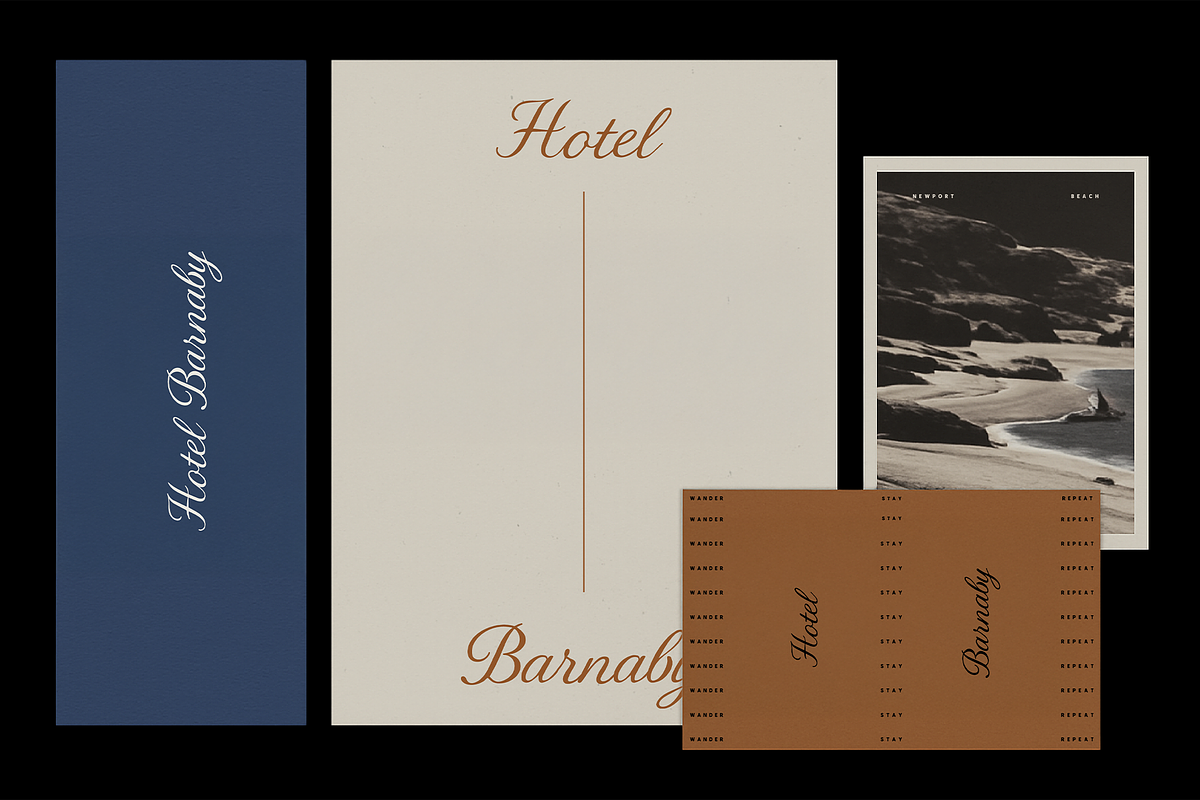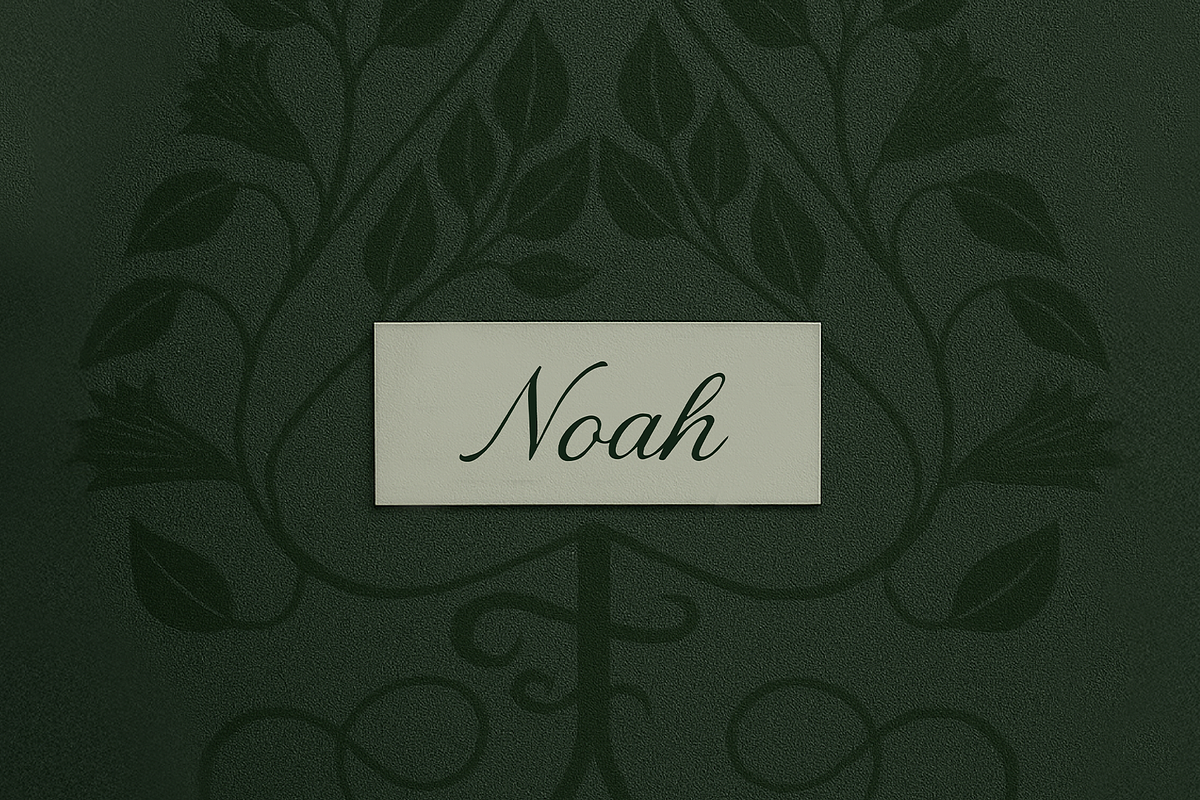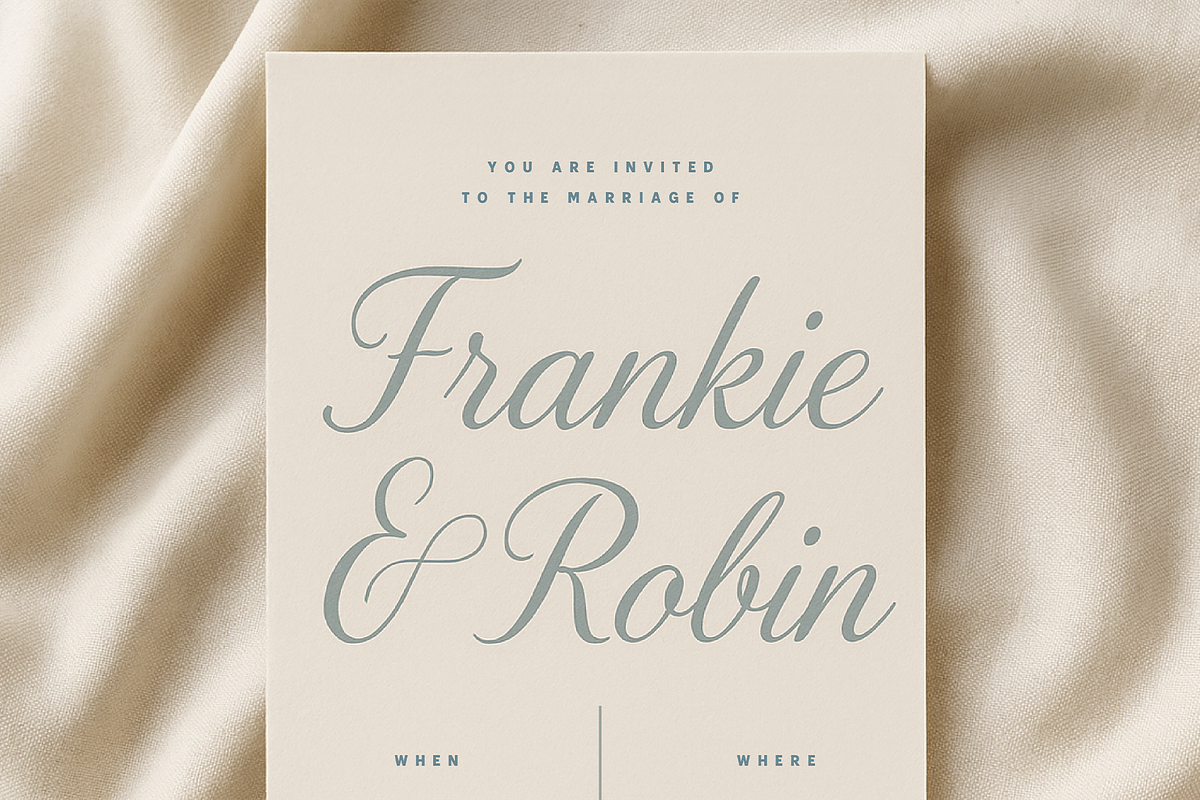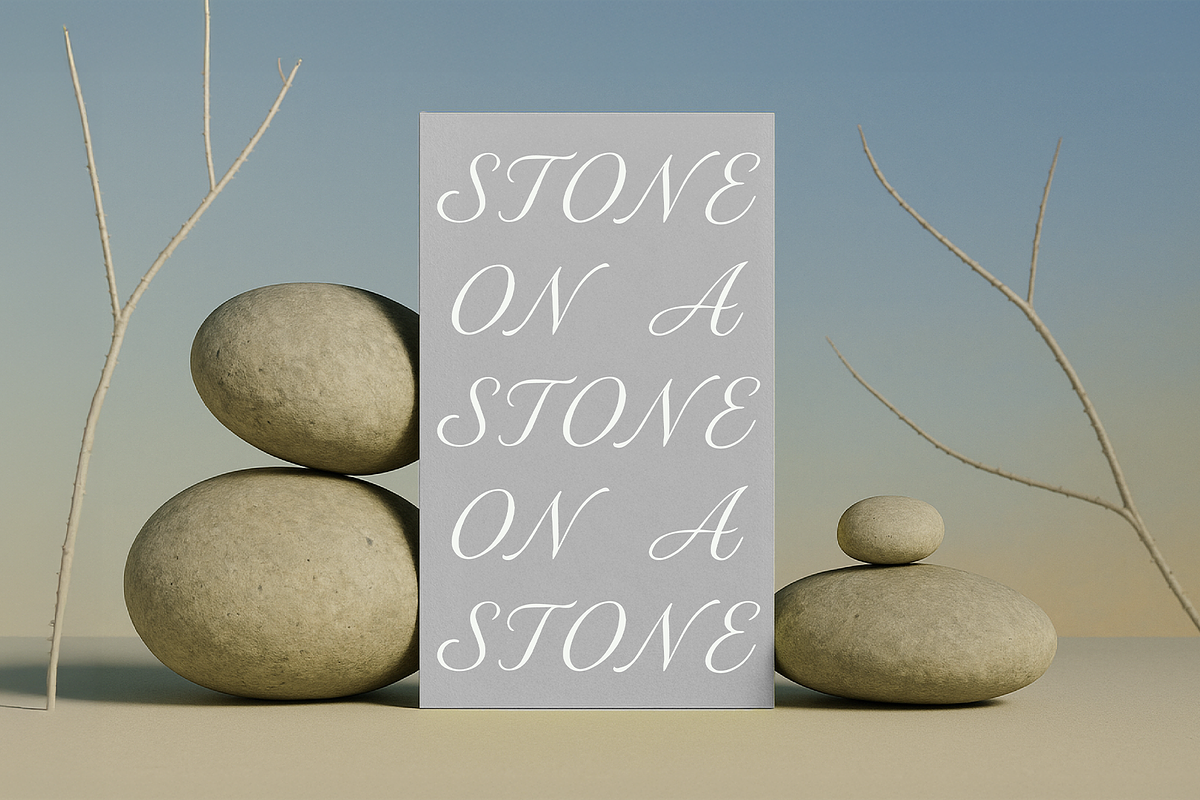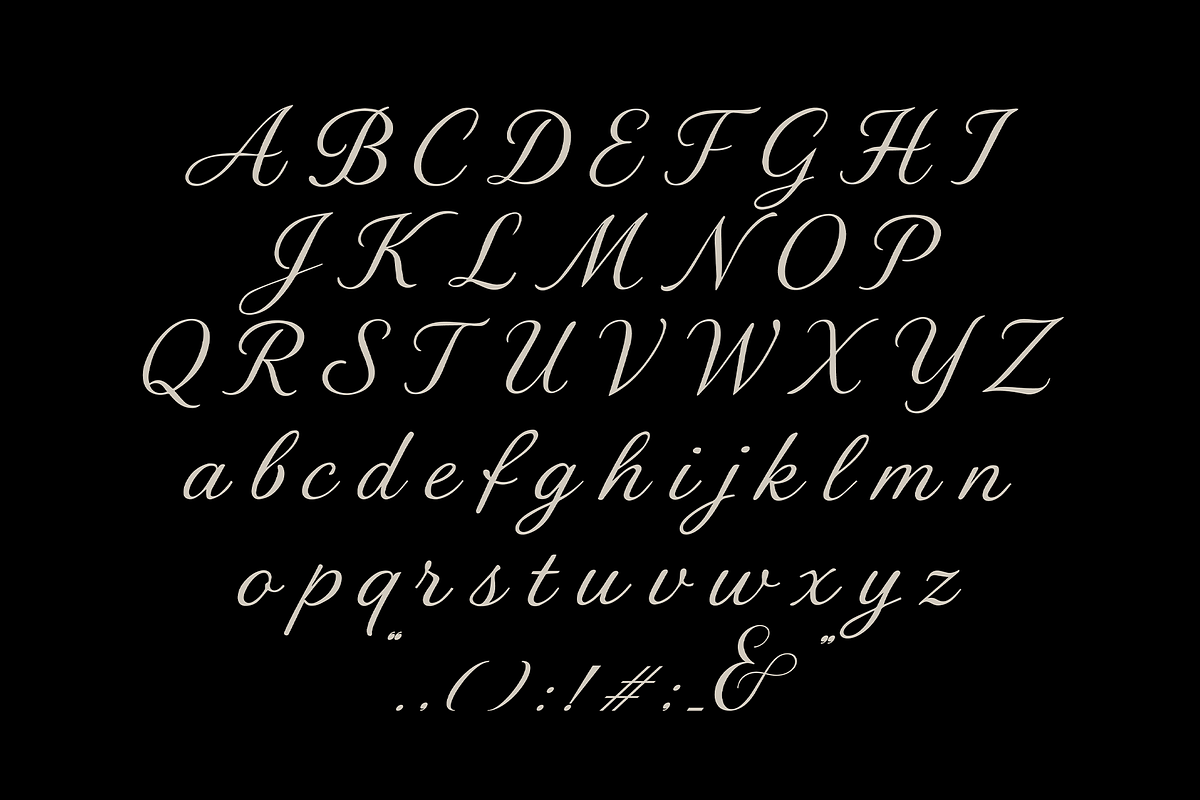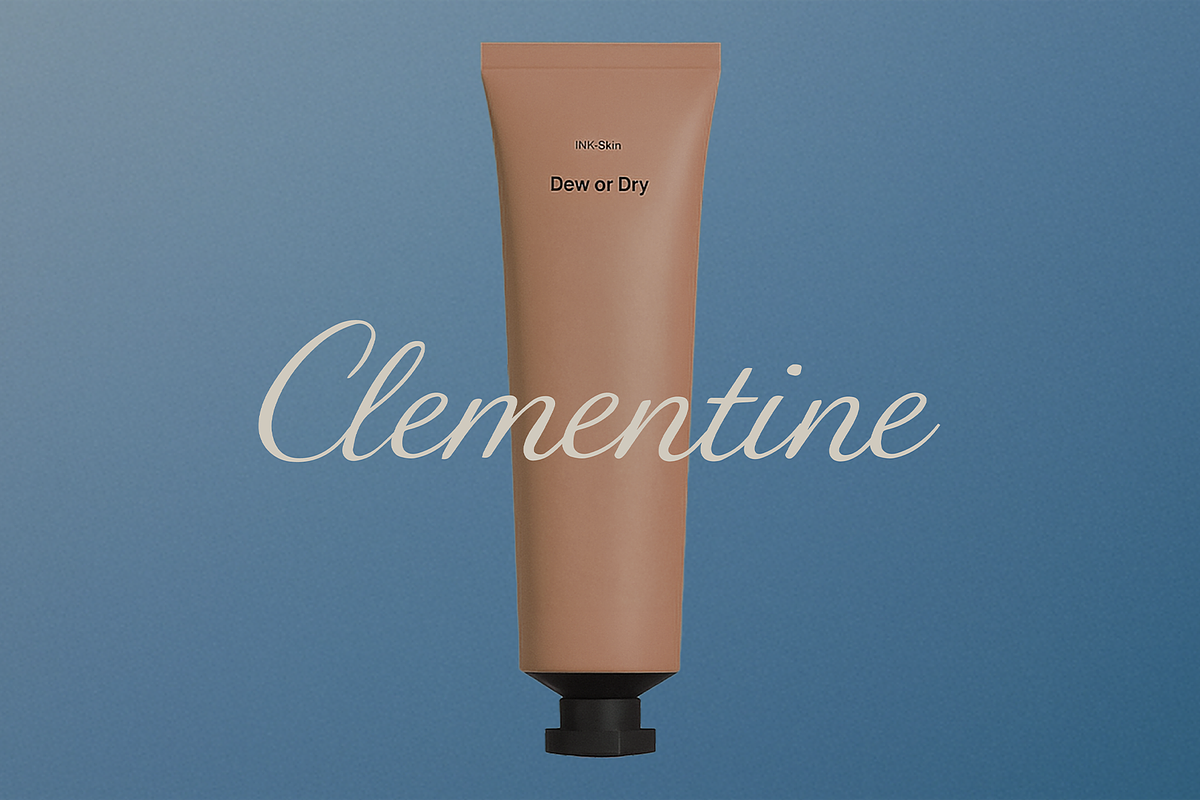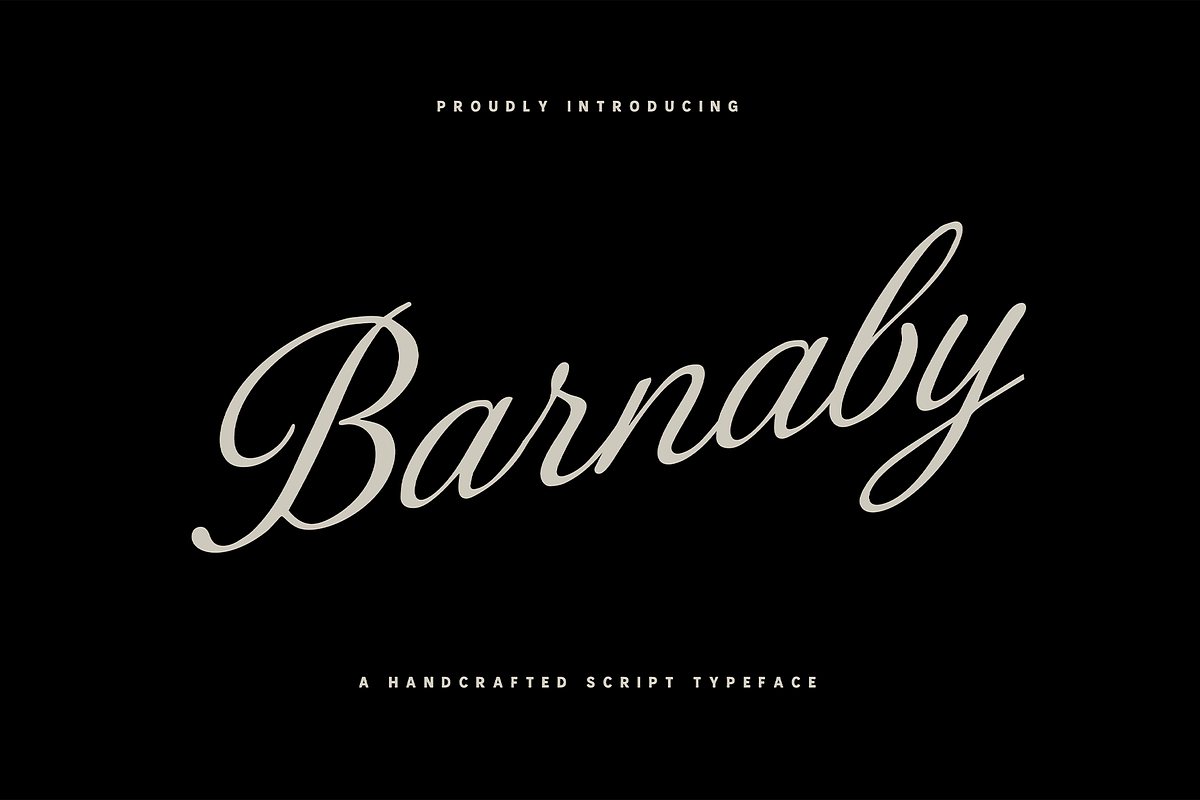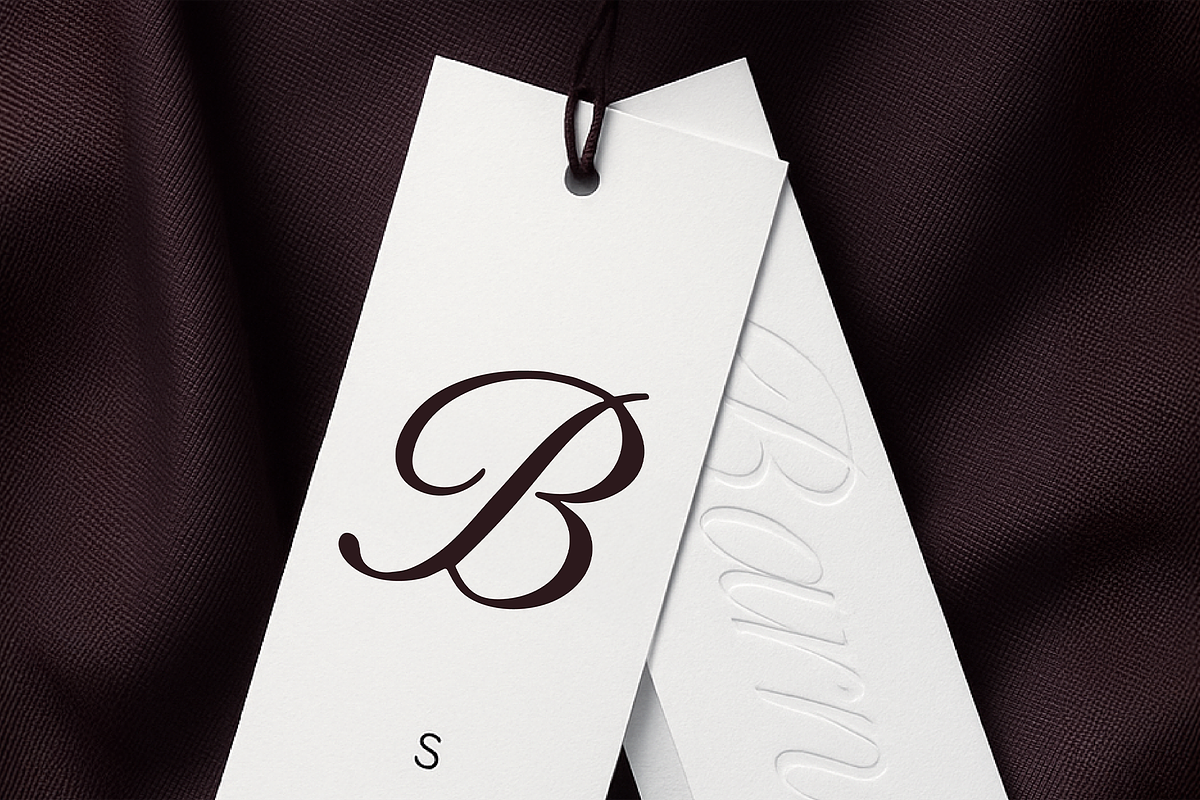
Barnaby - script typeface
Meet Barnaby, a romantic typeface perfect for branding, weddings, editorial work, posters, website designs, and more.
This set includes a flowing, elegant script font (uppercase, lowercase + punctuation) full of personality for any project. The font is refined and timeless, suitable for branding, wedding invitations, greeting cards, posters, name card, quotes, blog header, logo, fashion, apparel, letter, stationery and other projects.